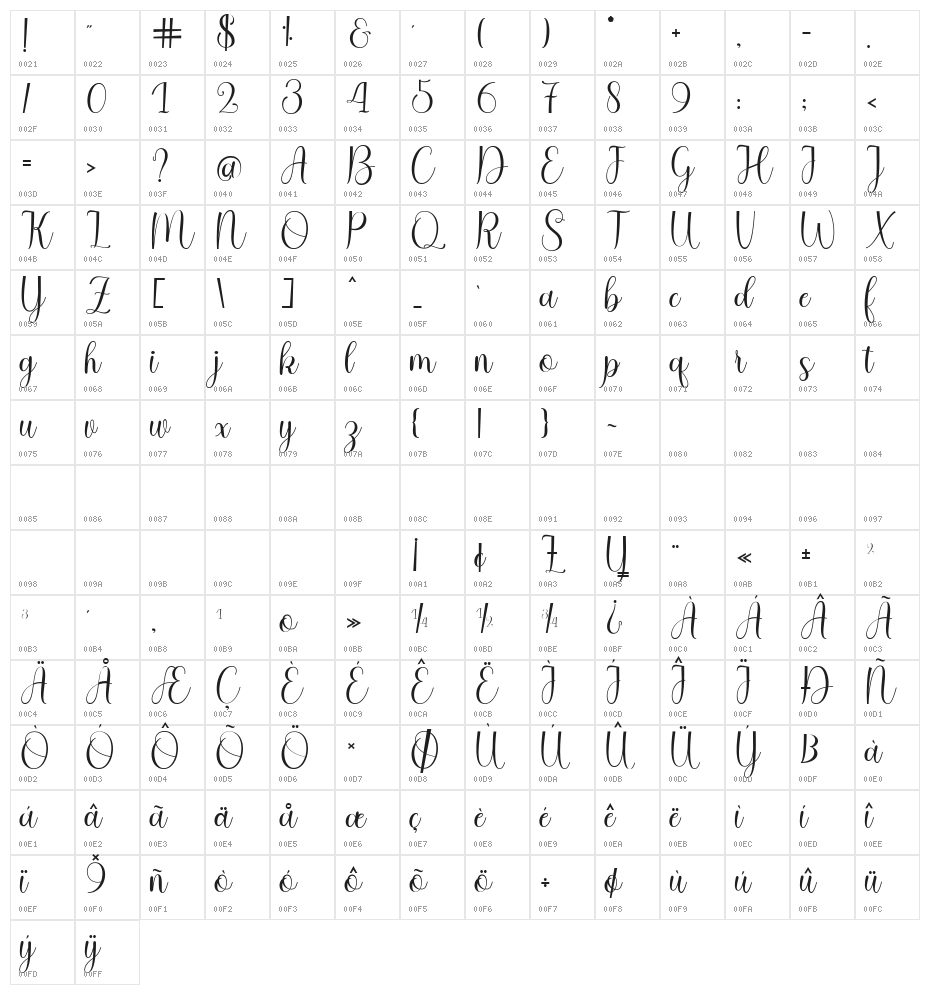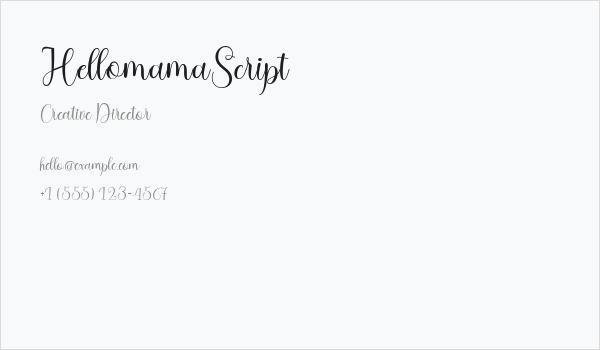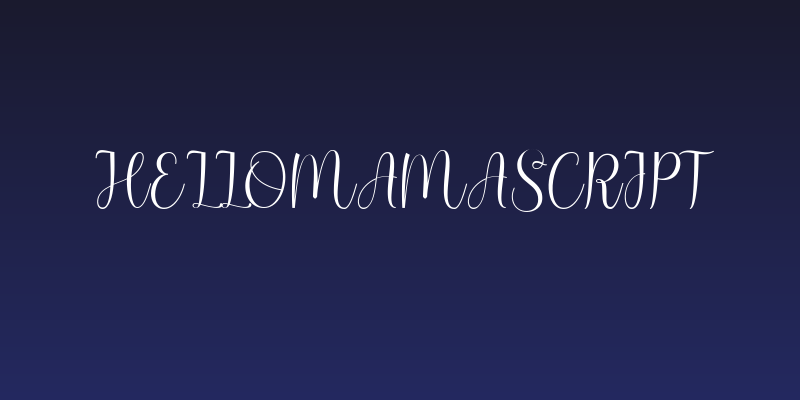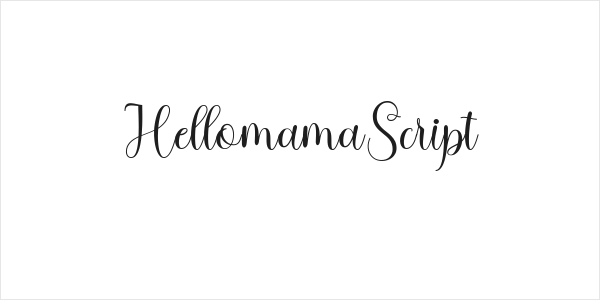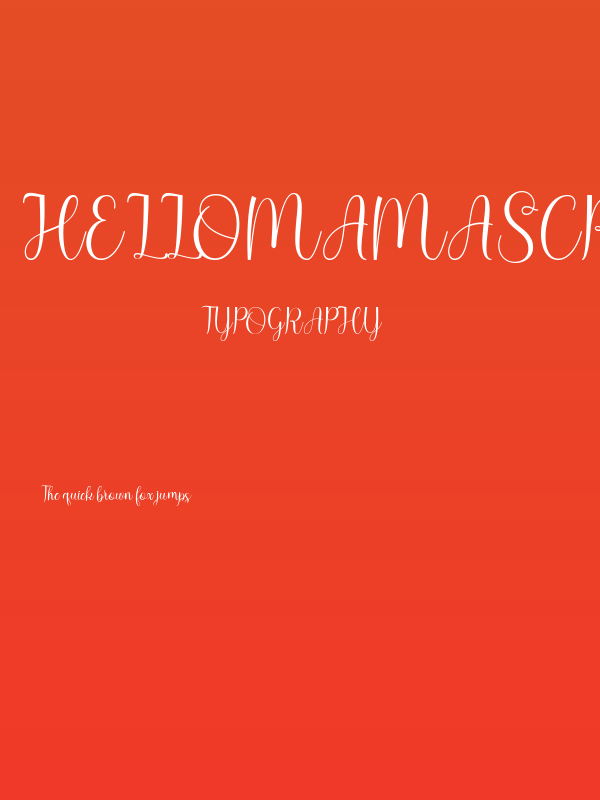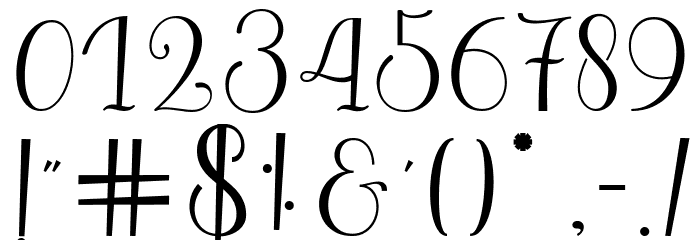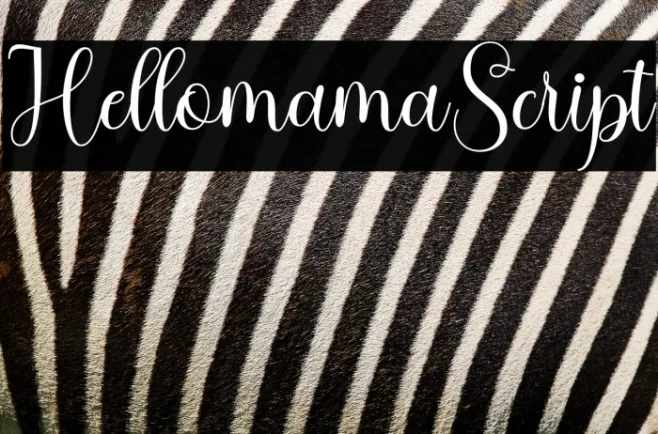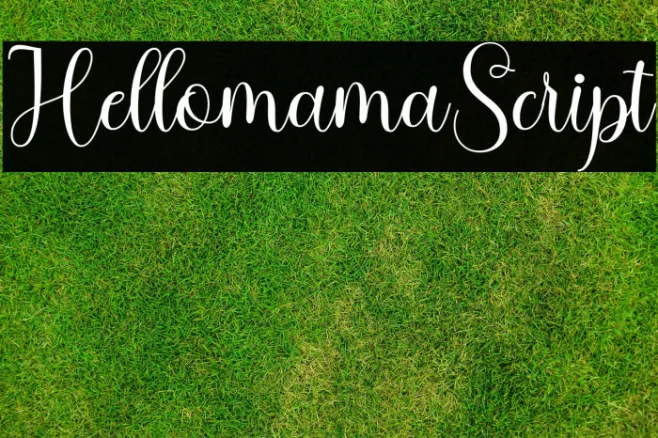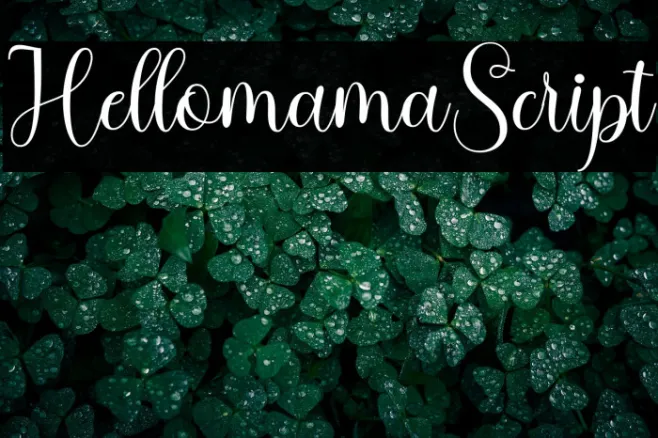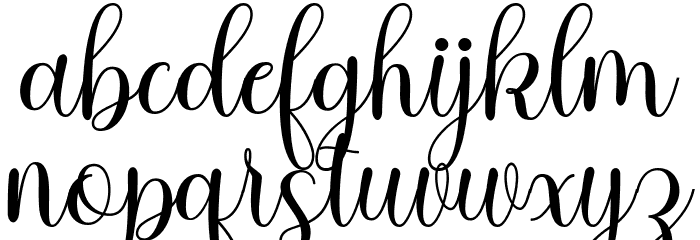
HellomamaScript Font
HellomamaScript Description
This script font exudes elegance and fluidity, characterized by its smooth, flowing lines and graceful curves. The uppercase letters are tall and slender, with a slight slant that adds a dynamic feel. The lowercase letters are more rounded and connected, creating a harmonious and cohesive look. The numerals are consistent with the overall style, maintaining the same elegant curves. Special characters are thoughtfully designed to match the aesthetic, ensuring versatility in various applications. The font's overall appearance is both sophisticated and approachable, making it suitable for a wide range of design projects.
| Proposed Projects | Ideal for wedding invitations, branding, greeting cards, and elegant packaging. |